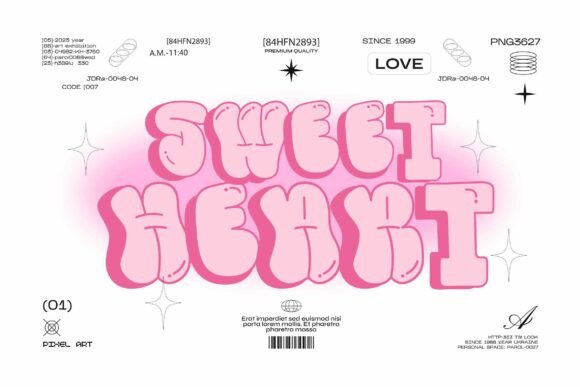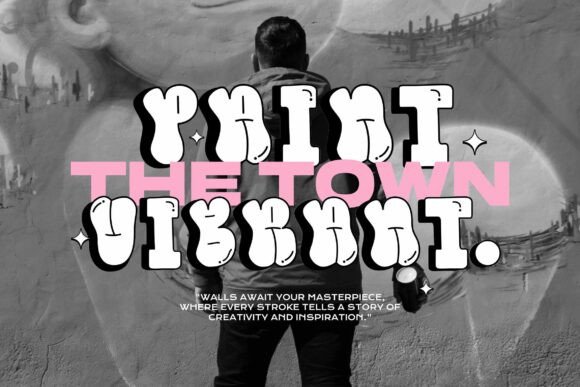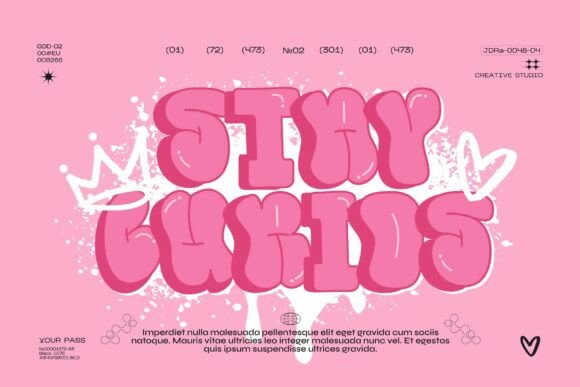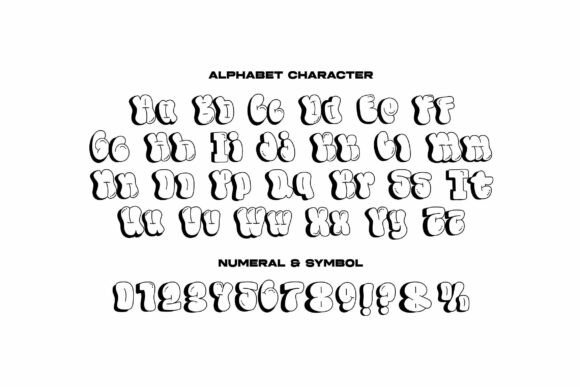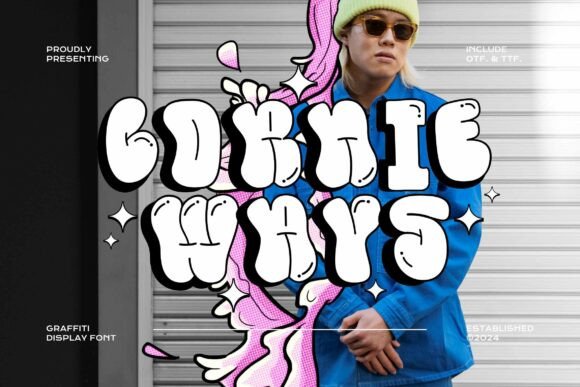
Cornie Ways Font: Add a Touch of Cheerfulness to Your Designs
Are you tired of using the same old fonts in your designs? Look no further than Cornie Ways, a 3D bubble display font that’s sure to bring a smile to your audience’s face. With its lively appearance and versatility, Cornie Ways is the perfect addition to any design project.
What is Cornie Ways Font?
Cornie Ways is a unique and eye-catching font that’s designed to add a touch of cheerfulness to your designs. This 3D bubble display font features a fun and playful style that’s perfect for making your work stand out. Whether you’re working on a logo, invitation, or product packaging, Cornie Ways is sure to make your design look stunning and attractive.
Key Features of Cornie Ways Font
- 3D Bubble Display Font: Cornie Ways features a unique 3D bubble design that’s sure to grab attention.
- Lively Appearance: This font has a lively and playful appearance that’s perfect for adding a touch of cheerfulness to your designs.
- Versatile: Cornie Ways works in both uppercase and lowercase sizes, making it suitable for a wide variety of projects.
Uses for Cornie Ways Font
Cornie Ways is a versatile font that can be used in a wide variety of projects, including:
- Display Font for Headings: Use Cornie Ways as a display font for headings to add a touch of cheerfulness to your designs.
- Logo Fonts: This font is perfect for creating unique and eye-catching logos.
- Invitations: Add a touch of whimsy to your invitations with Cornie Ways.
- Branding: Use Cornie Ways to create a consistent brand image that’s fun and playful.
- Book Covers: This font is perfect for book covers that need to stand out on the shelves.
- Sticker, Card, and Product Packaging: Use Cornie Ways to add a touch of personality to your product packaging and marketing materials.
- Product Mockup: Create stunning product mockups with Cornie Ways.
- Mugs, Posters, and Labels: This font is perfect for creating fun and eye-catching designs for mugs, posters, and labels.
- Editorials and Art Deco: Use Cornie Ways to add a touch of whimsy to your editorials and art deco designs.
- Advertising: This font is perfect for any type of advertising purpose, from social media ads to billboards.
Why Choose Cornie Ways Font?
There are many reasons to choose Cornie Ways font for your next design project. Here are just a few:
- Unique and Eye-Catching: Cornie Ways is a unique and eye-catching font that’s sure to grab attention.
- Versatile: This font can be used in a wide variety of projects, from logos to book covers.
- High-Quality Design: This font features a high-quality design that’s sure to make your work look stunning and attractive.
If you’re looking for a font that will add a touch of cheerfulness to your designs, look no further than Cornie Ways. This 3D bubble display font is versatile, easy to use, and features a unique and eye-catching design. With its wide range of uses and high-quality design, Cornie Ways is the perfect addition to any design project.